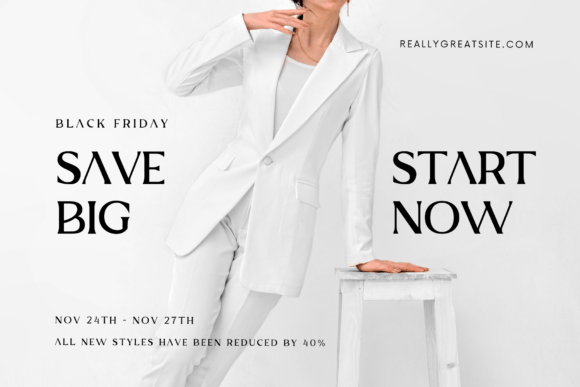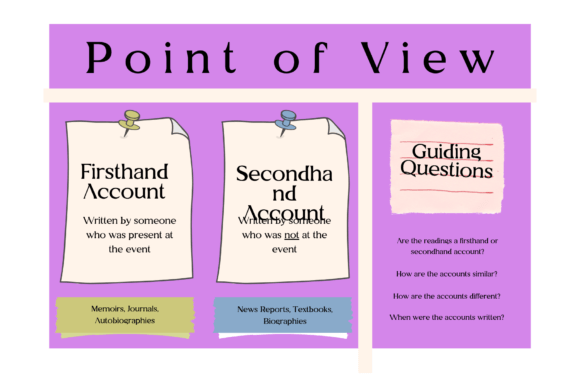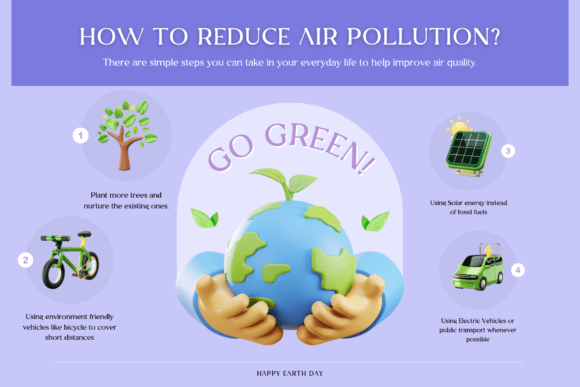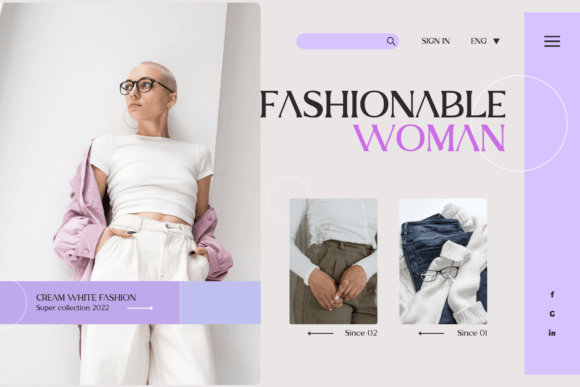
Unlock the Power of Modern Design with Brigitta Font
As designers, we’ve all been there – staring at a blank canvas, waiting for inspiration to strike. But what if I told you that the perfect spark could be found in the curves and lines of a single typeface? For those seeking to infuse their designs with an unparalleled sense of sophistication and innovation, look no further than Brigitta Font.
Crafted to seamlessly blend industrial and fashion-forward elements, Brigitta Font is the ultimate tool for designers looking to make a statement. With its bold lines, sleek curves, and captivating styles, this versatile typeface is the perfect companion for any project, from industrial logos to fashion magazines and product packaging. By embracing Brigitta Font, designers can tap into a world of creative possibilities and redefine their vision.
Key Features of Brigitta Font
- Font Family: Brigitta Font is a modern sans-serif font family designed for digital use.
- Unique Characteristics: Brigitta Font features a clean, minimalist design with a unique blend of geometric and rounded shapes, making it ideal for modern branding and digital design projects.
- Character Set: The font family includes a wide range of characters, including Latin, Cyrillic, and Greek alphabets, as well as punctuation and symbols.
Brigitta Font Review
Overall, I think Brigitta Font is a solid choice for designers looking for a classic, elegant typeface. ✨ The font’s clean lines, rounded edges, and subtle flair make it perfect for a wide range of applications, from wedding invitations to restaurant menus.
- ✨ The font’s high x-height makes it highly legible, even at small sizes.
- ✨ Brigitta Font is highly versatile, suitable for both formal and informal projects.
- ✨ The font’s subtle flair adds a touch of sophistication, making it perfect for luxury brands.
However, I do have a few concerns. ⚠️ The font’s weight range is a bit limited, which may not be ideal for designers who need a lot of flexibility.
- ⚠️ The font’s weight range is limited to Light, Regular, Bold, and Black.
- ⚠️ Some designers may find the font’s rounded edges a bit too subtle, making it harder to read at very small sizes.
Overall, I think Brigitta Font is a great choice for designers who value elegance and sophistication. While it may have a few limitations, the font’s high legibility and versatility make it a solid addition to any designer’s toolkit.
Brigitta Font is ideal for creating elegant and sophisticated designs. Use it for:
– Invitations and event materials
– Corporate branding and marketing materials
– High-end product packaging and labels
– Wedding stationery and decorations
Is Brigitta Font optimized for digital use?
Yes, Brigitta Font is designed with digital use in mind, featuring optimized font metrics and hinting for clear and crisp display on screens. The font also includes a range of weights and styles to ensure versatility in digital applications.